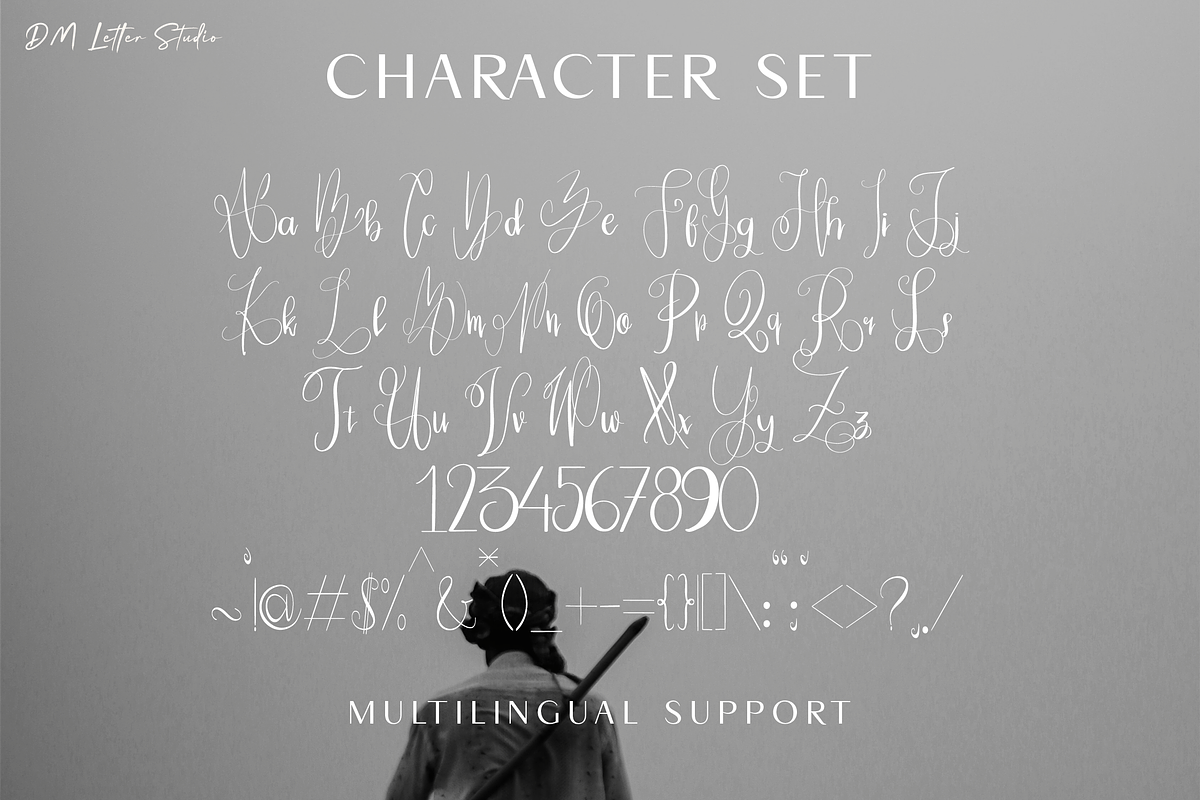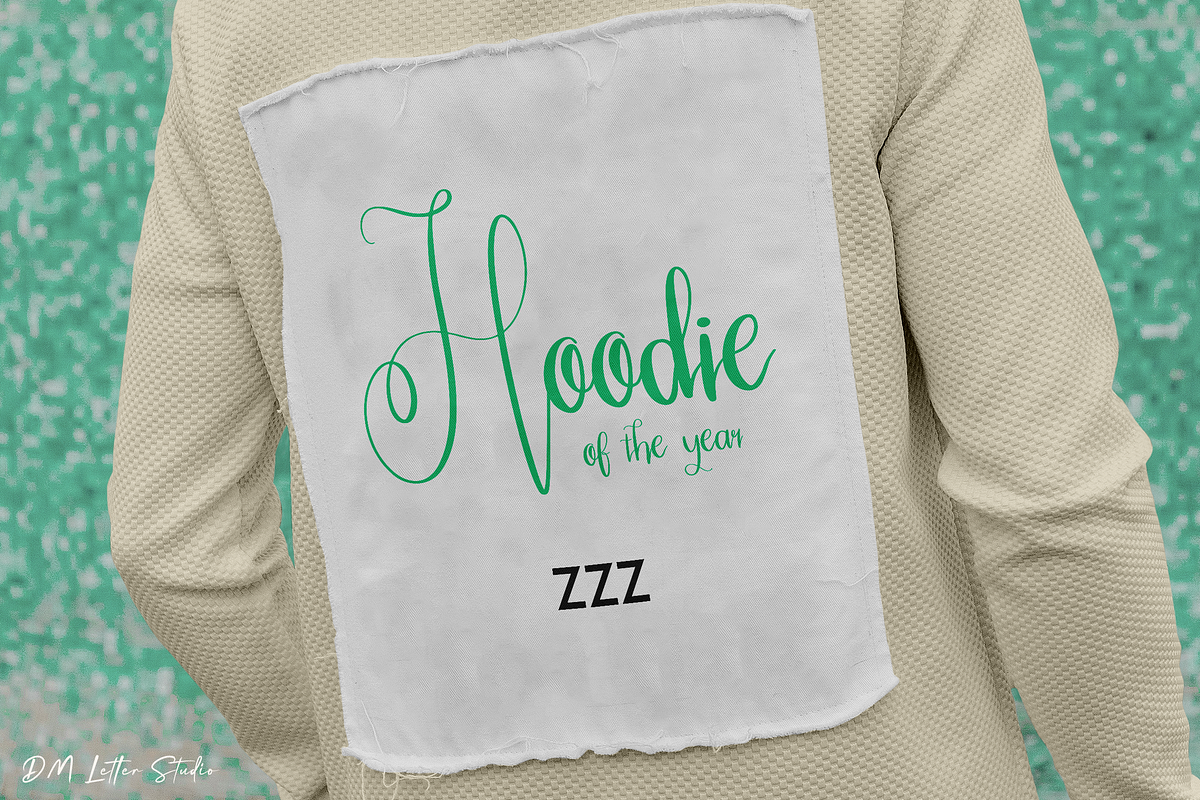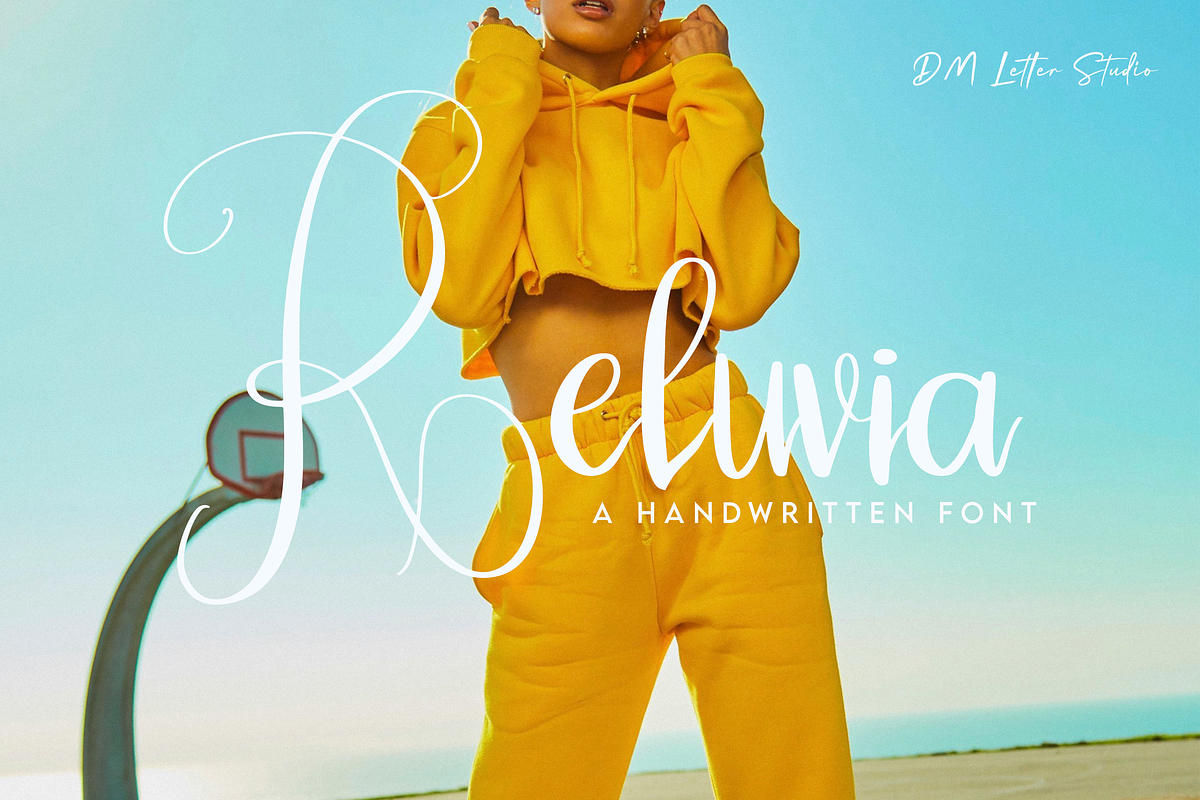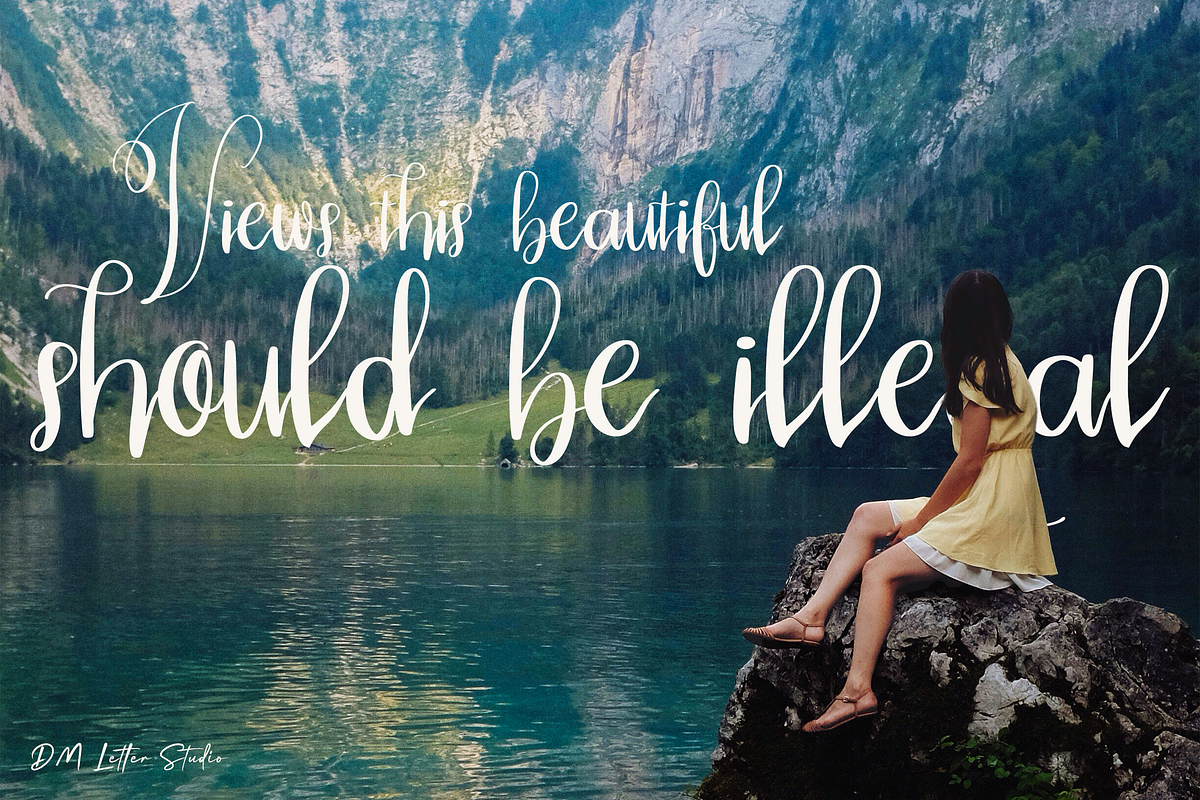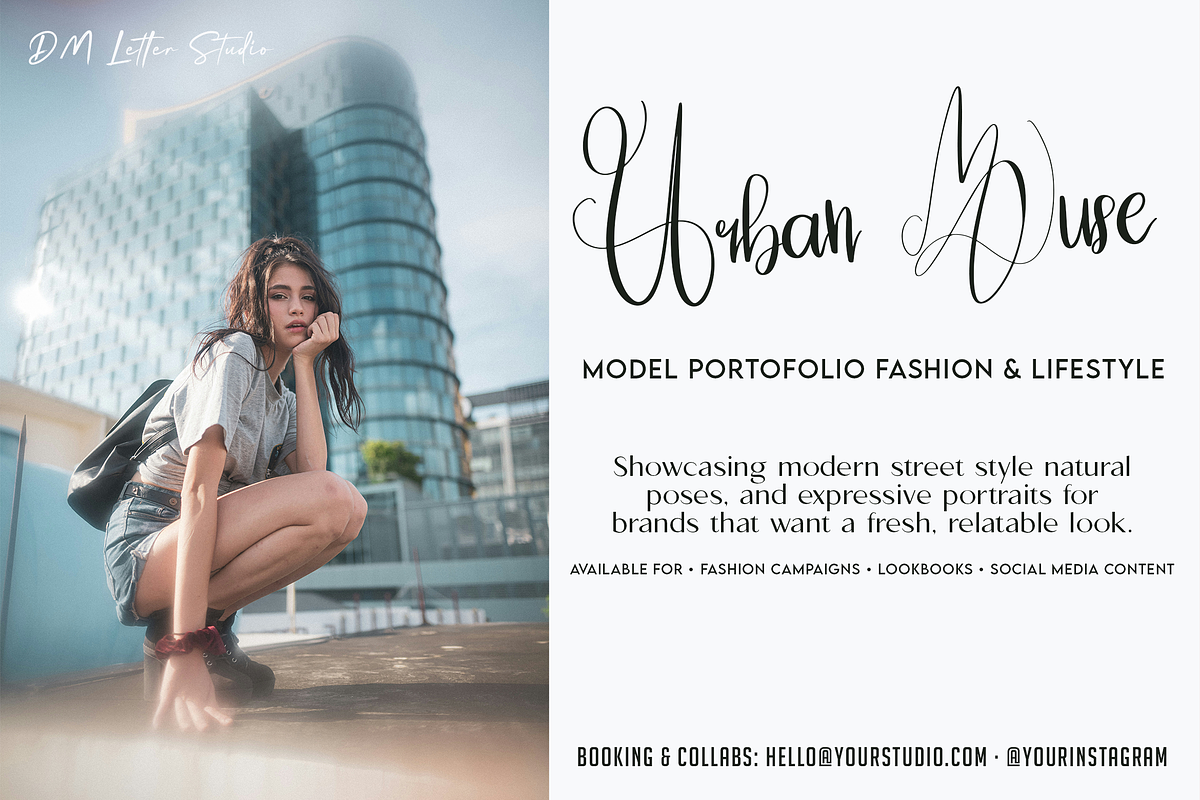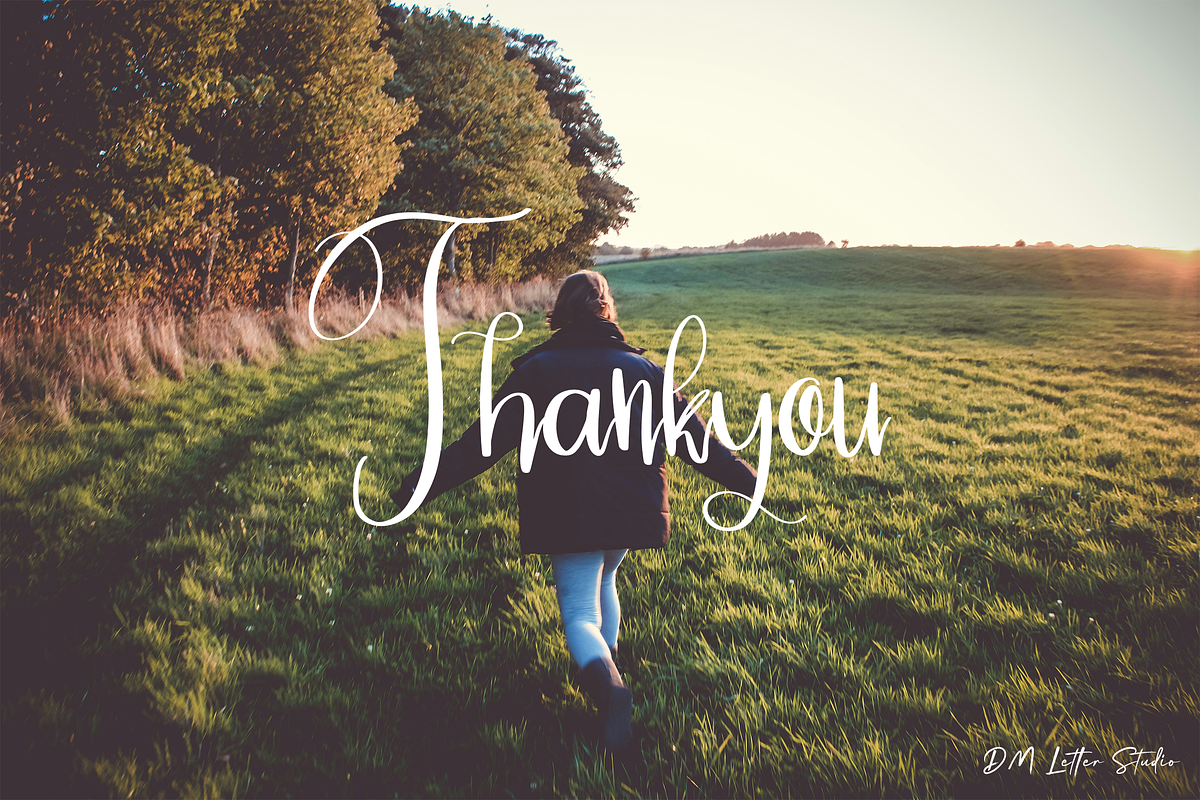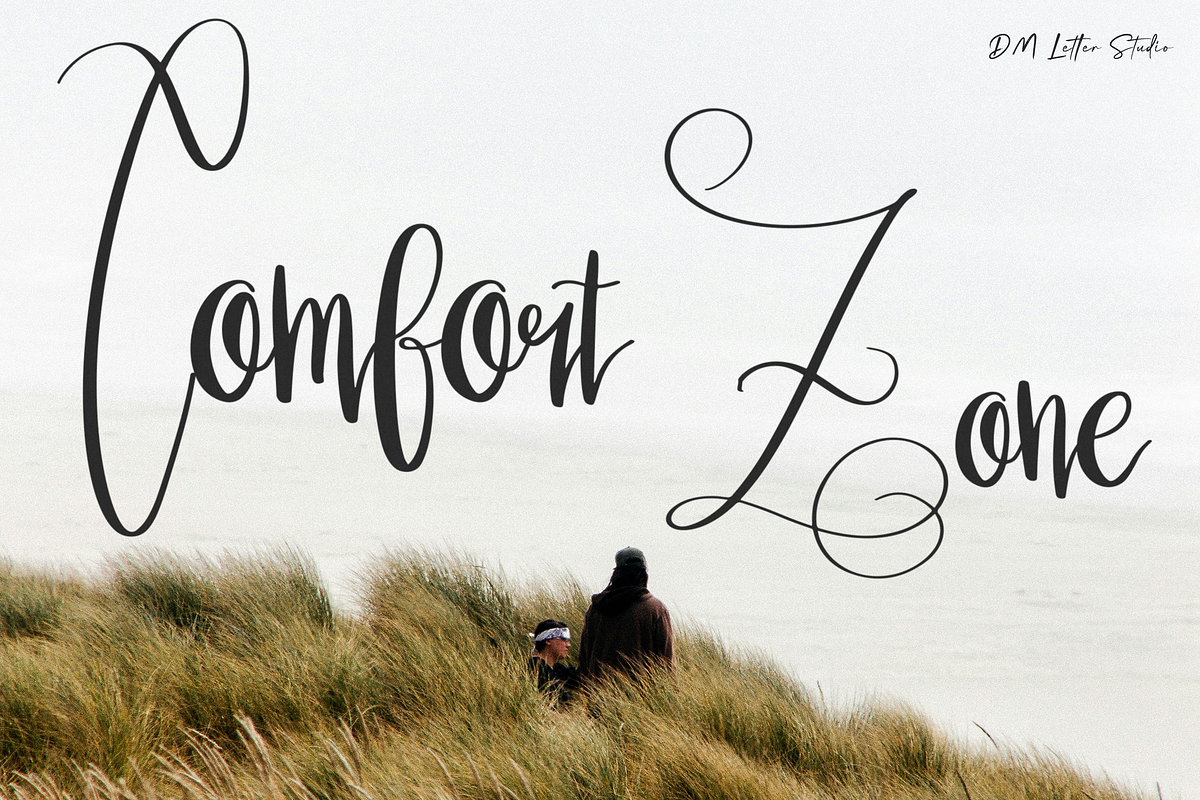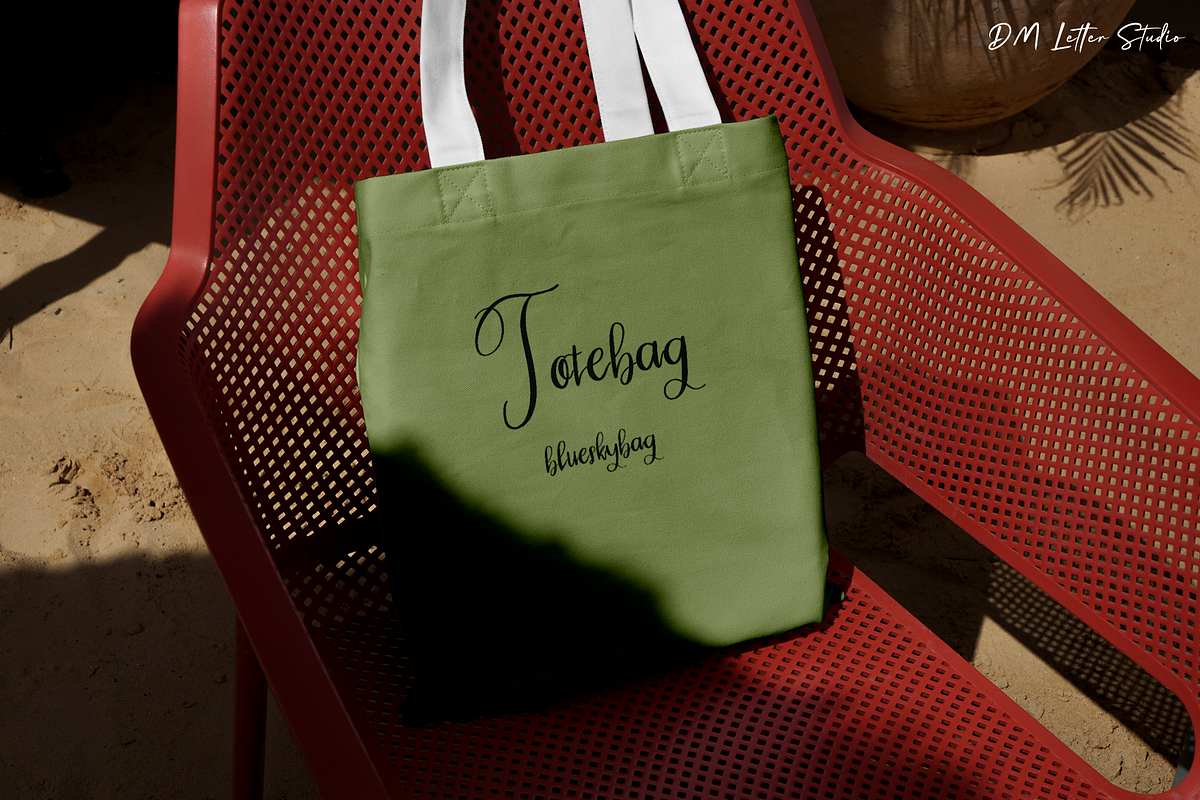
Reluvia
Meet Reluvia, the Handwriting Font
Reluvia is a handwriting font with a warm, personal feel that reads like a confident note on good paper. The strokes are smooth and natural, so it looks authentic without getting messy. Because the letterforms stay open and balanced, Reluvia remains clear at small sizes while still feeling expressive in larger headlines. Use it for brand quotes, product cards, logo accents, social posts, planners, invitations, and packaging. As a result, your designs feel friendly, premium, and human in seconds.
Fast layouts with the Reluvia font
Start with a short phrase in Reluvia, then keep supporting text simple. After that, add a clean sans for details like dates, pricing, or product info. Because Reluvia looks best with breathing room, give it wider margins and avoid over-stacking lines. In addition, try pairing it with minimal icons like hearts, sparkles, or thin botanical lines to keep the focus on the handwriting. Finally, save palette pairs like black & cream, blush & cocoa, or sage & ivory to repeat across your product line.
Creative uses and quick wins
Quote posts, highlight covers, and story templates
Product thank-you cards, care cards, and inserts
Invitations, place cards, and small event signage
Labels, stickers, packaging seals, and gift tags
Uppercase, lowercase, numbers, punctuation
Natural handwriting flow for clean readability
Curves tuned for print, cutting, and high-res exports
Design tips for Reluvia
Keep text short and let the handwriting lead. Also, increase line spacing a bit for a more airy, premium look. For print, export at 300 DPI, and for web export at 2× size so edges stay smooth. If you’re cutting vinyl, go slightly larger to keep curves clean. Finally, use subtle textures like paper grain or soft shadows when you want extra depth.